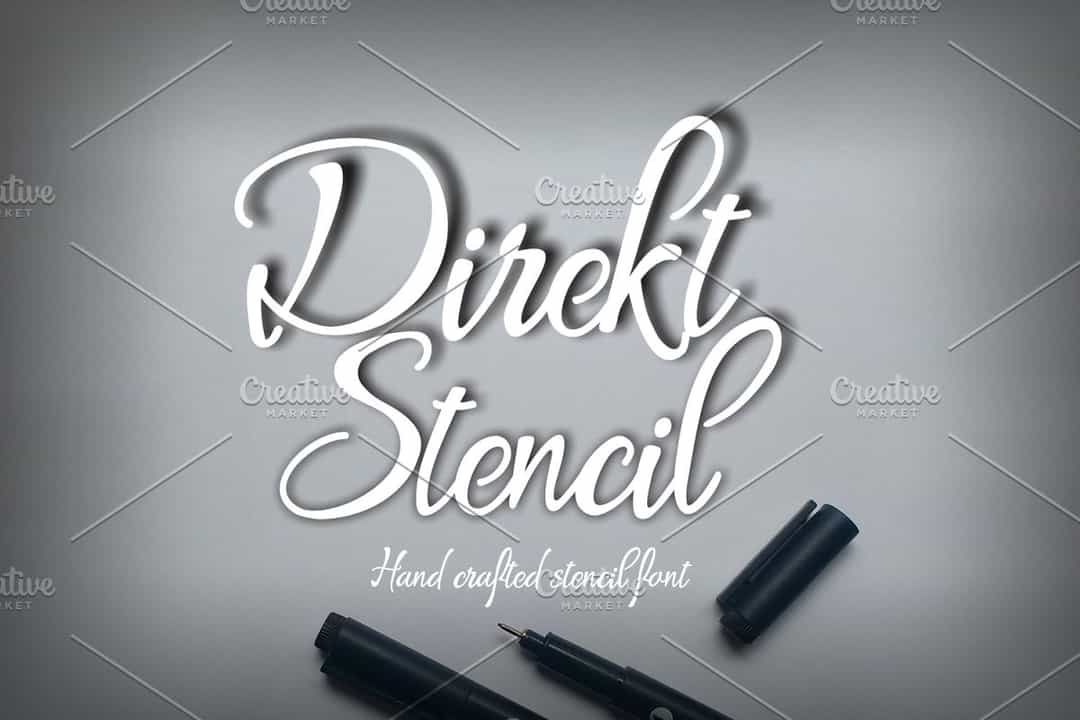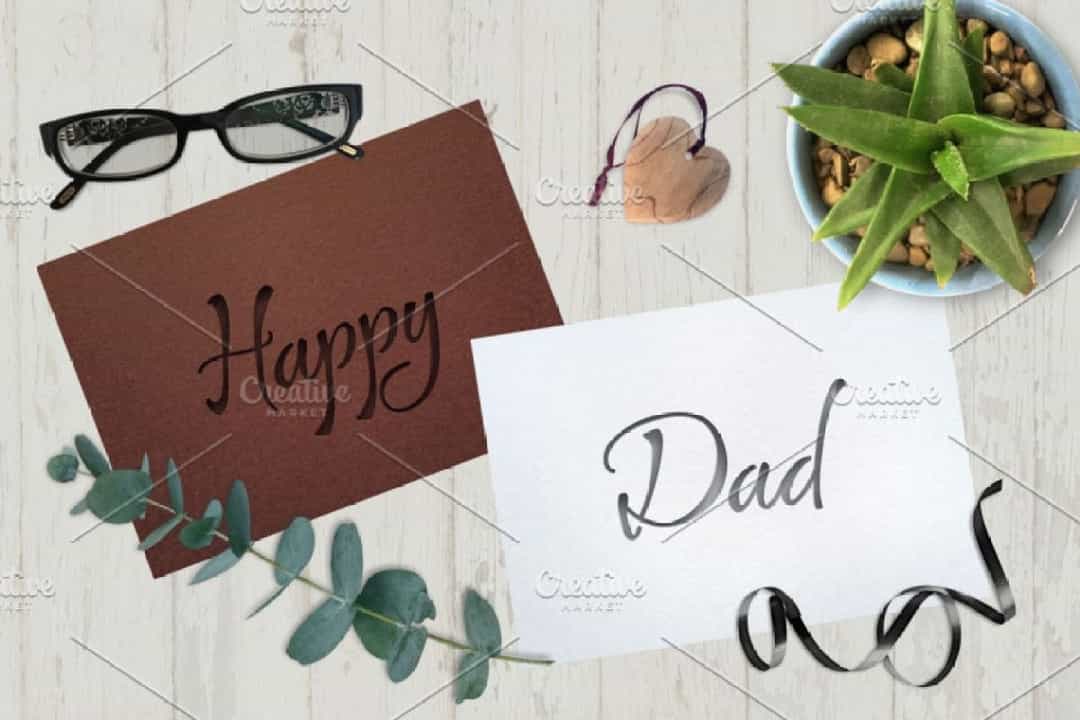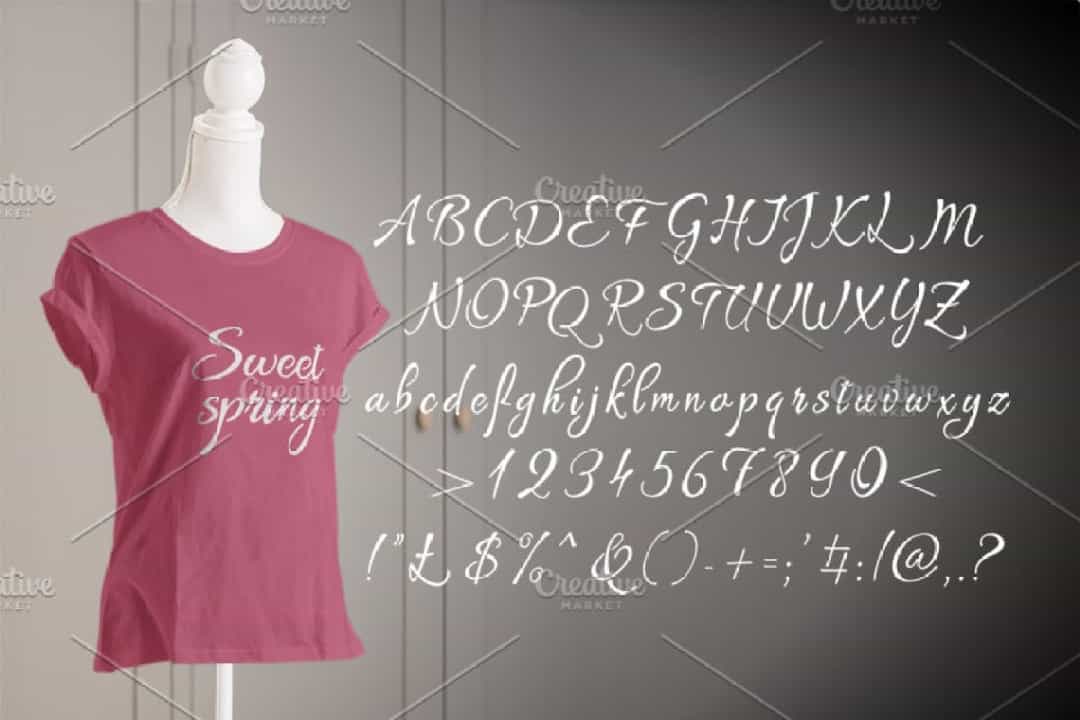
Discover Direkt Stencil Handwritten Script Font, part of the Handwritten Script collection—a versatile and unique font perfect for adding a personal touch to your projects. Download it for free and enjoy crafting designs with style, from invitations to social media posts. This font is available exclusively for personal use, giving you the freedom to create without limits. Unlock your creativity with Direkt Stencil Handwritten Script Font today!
Direct Stencil is an elegant handwritten script font designed by Digital Typeface Studio with no closed loops around its characters that allows you to design distinctive and individual styles. Use this font with Adobe applications, Corel programs, Cricut machines and many others!